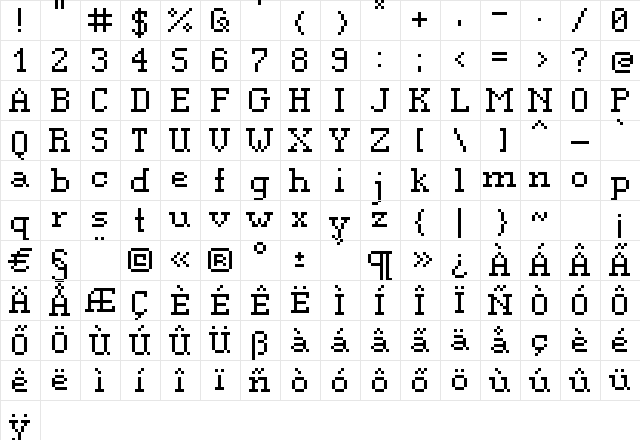
Cr-04 Regular
Design Context for Cr-04 Typeface
Cr-04 offers clean, dependable letterforms without strong stylistic allegiance, making it a practical choice for designers who need flexibility.